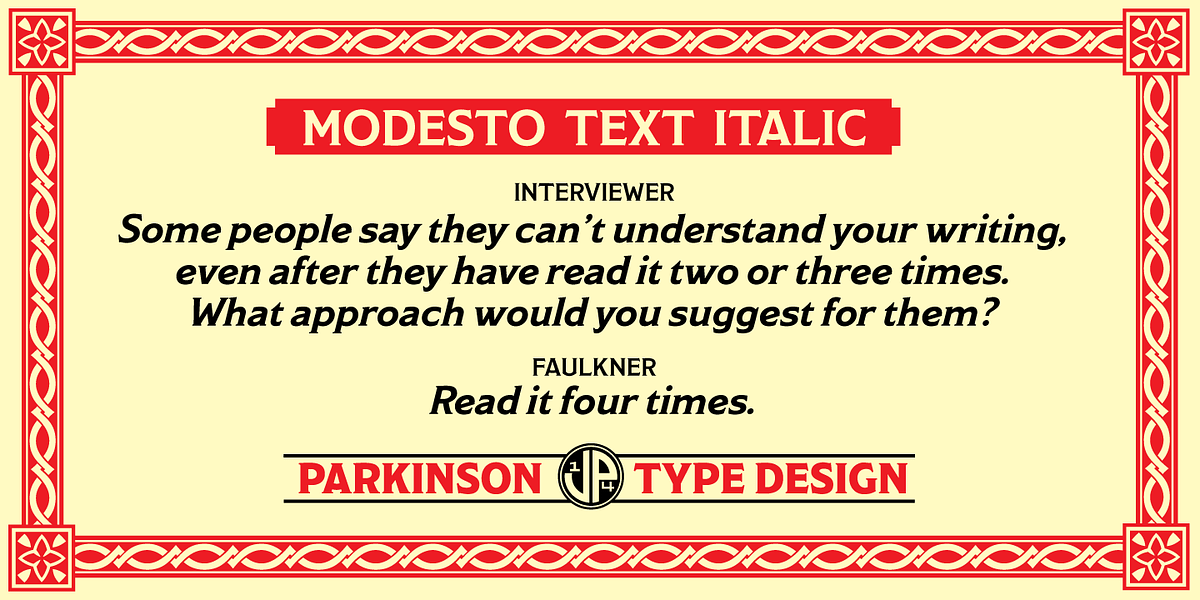
Modesto Text
The Modesto font family is a loose collection of fonts inspired by sign painting styles popular in the late 19th and early 20th centuries. The designer notes that it was not intentionally planned, but rather evolved over fifteen years. The unique flared serifs give Modesto a distinctive vintage feel reminiscent of classic circus posters and signage.